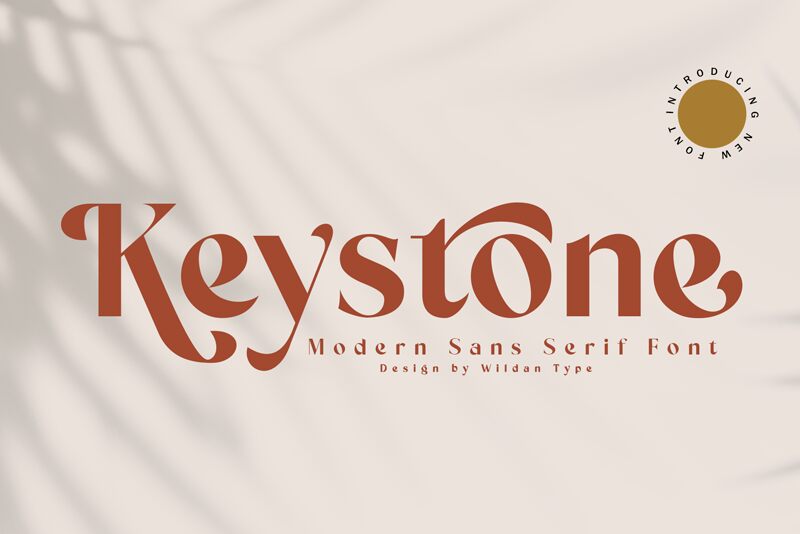
Keystone, a bold and captivating serif font crafted by Wildan Type, exudes a timeless elegance with its striking letterforms. The font's unwavering presence commands attention, its sturdy strokes and pronounced serifs lending an air of grandeur and authority. Keystone's refined aesthetic evokes a sense of sophistication, making it a compelling choice for prestigious branding, editorial design, and high-end marketing materials.
This versatile font's adaptability shines through, seamlessly complementing a range of design styles. Keystone's strong personality lends itself well to commanding headlines, impactful display typography, and attention-grabbing accents. Its robust construction and legible forms also make it a compelling option for body text in formal documents, literary publications, and sophisticated advertising campaigns.